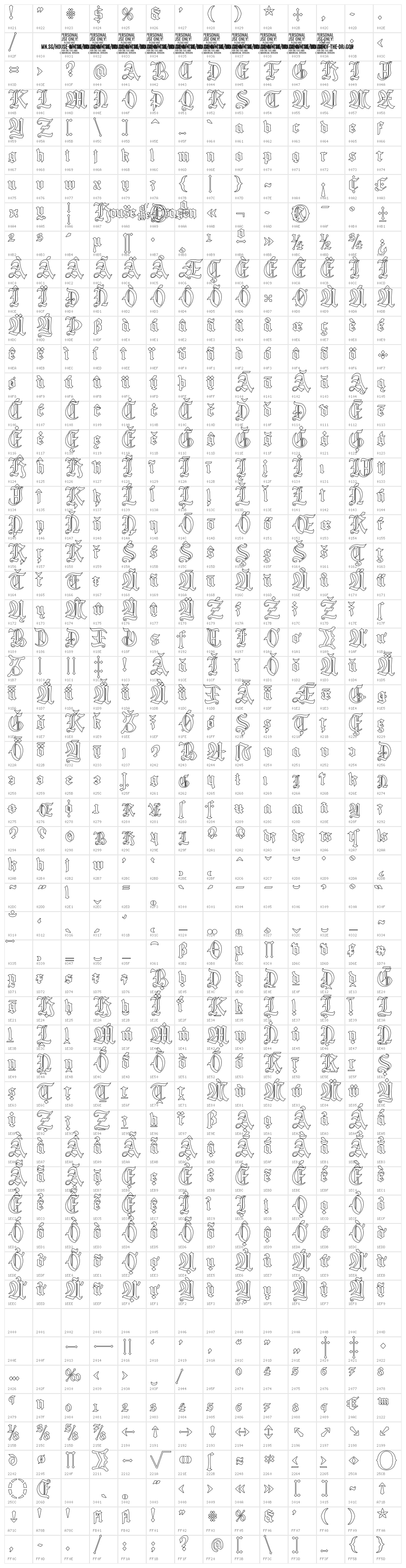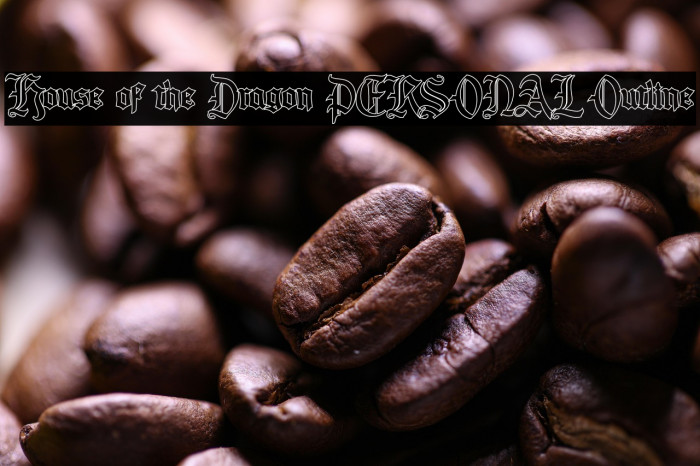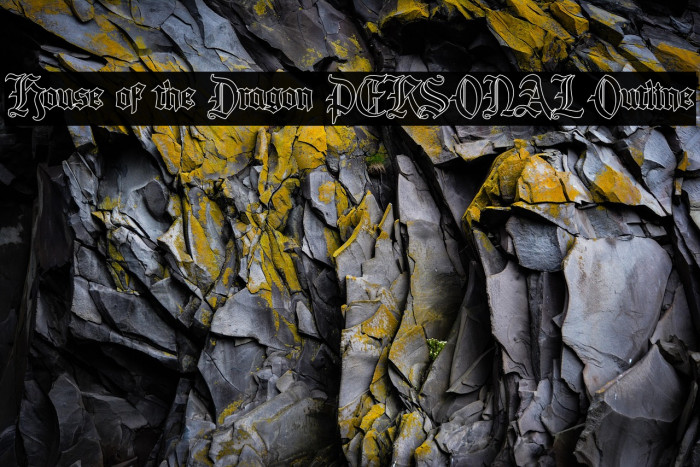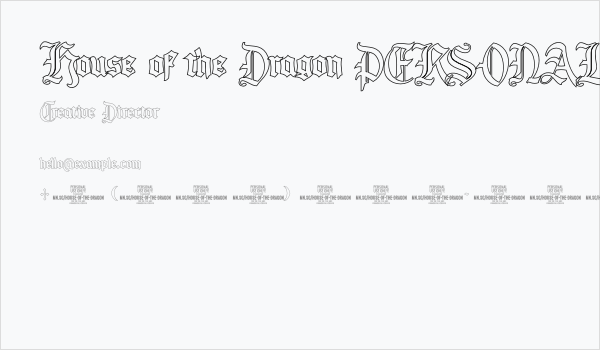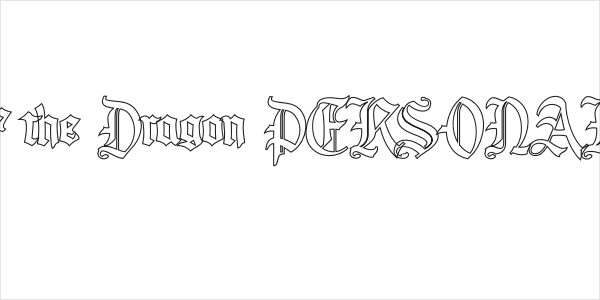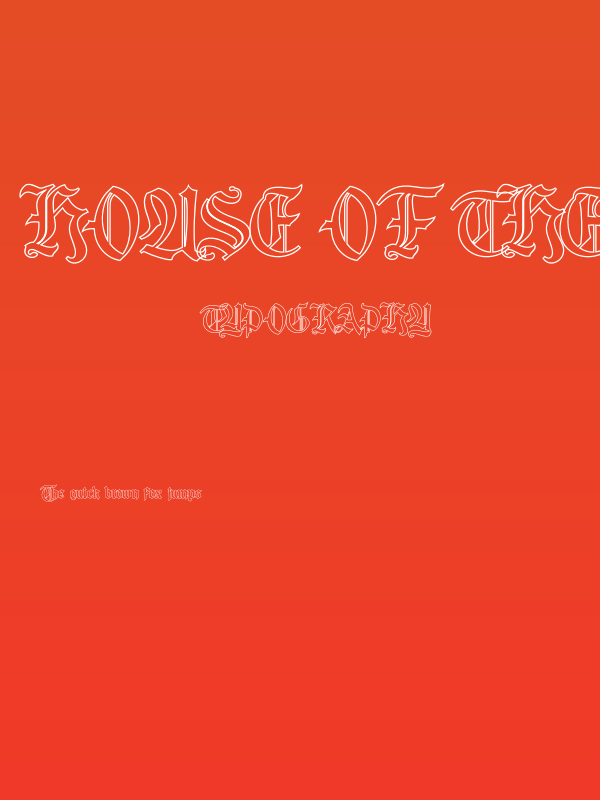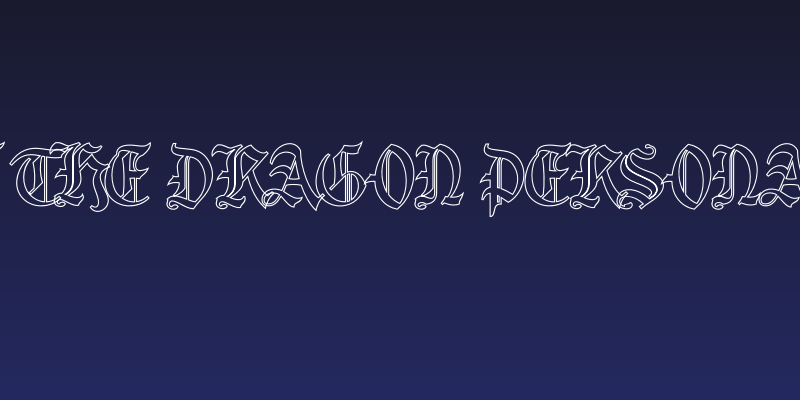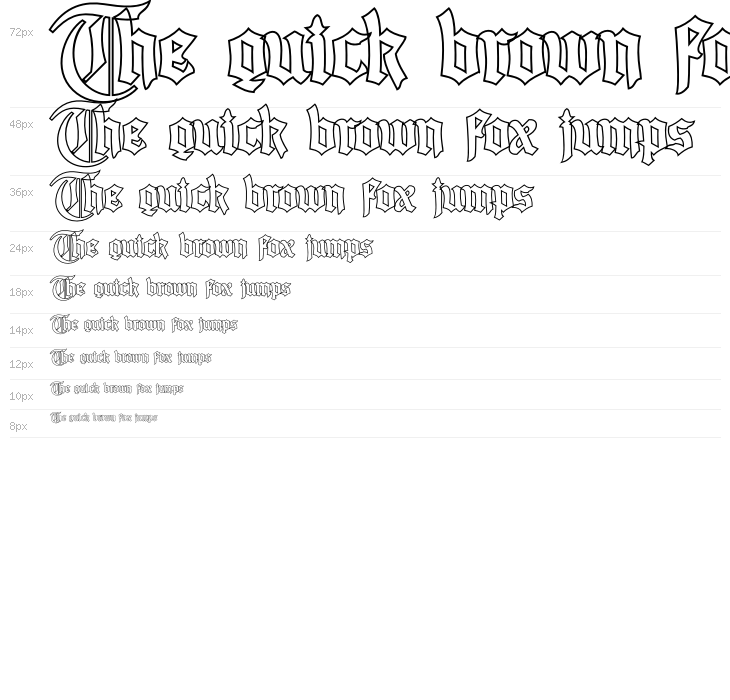
House of the Dragon PERSONAL Outline Font
House of the Dragon PERSONAL Outline Description
This font features a bold and intricate design inspired by medieval calligraphy, characterized by its ornate and decorative letterforms. The uppercase and lowercase letters exhibit a strong presence with sharp angles and flourishes, giving it a distinct Gothic appearance. The outlines are prominent, enhancing the dramatic and historical feel of the typeface. The numerals and special characters maintain the same stylistic elements, ensuring consistency across all glyphs. This font is ideal for projects that require a touch of elegance and historical depth.
| Proposed Projects | Suitable for fantasy-themed designs, historical event posters, book covers, and branding that requires a medieval touch. |